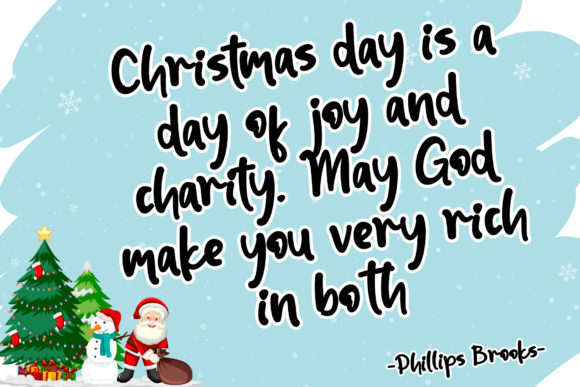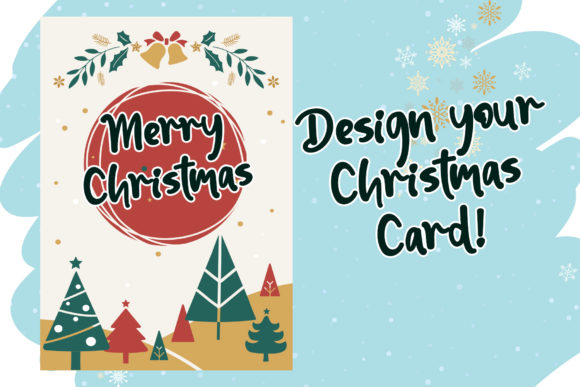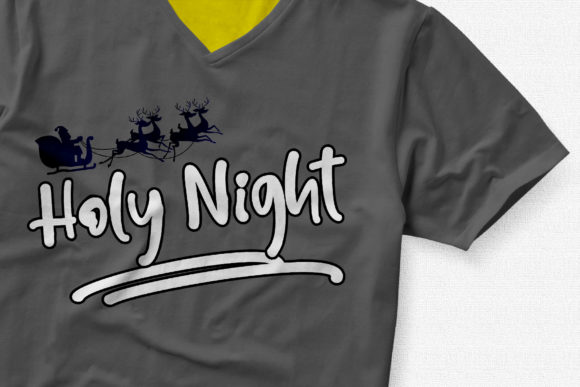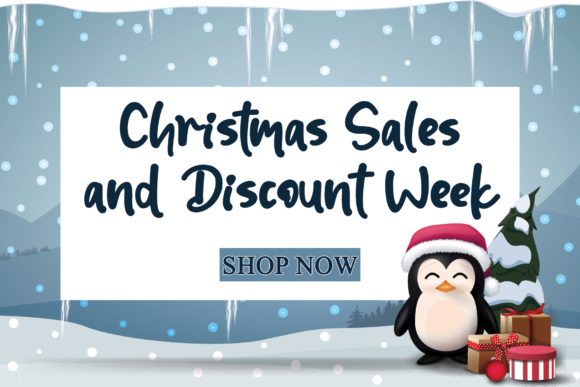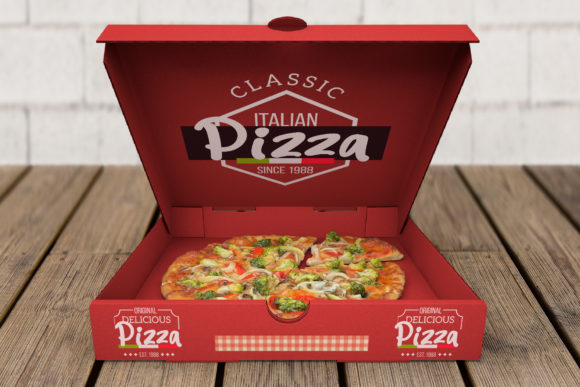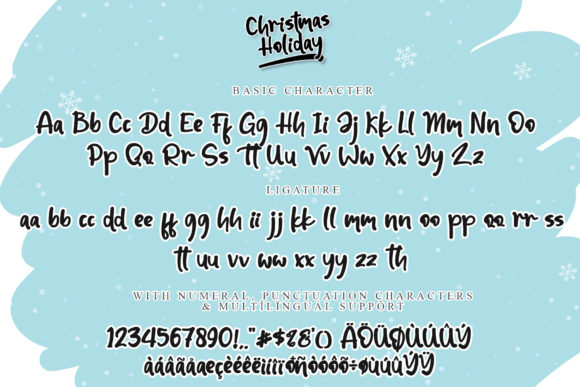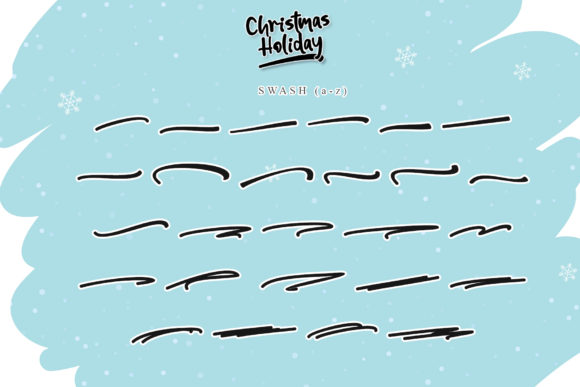
Christmas Holiday Font
About Christmas Holiday Font
Christmas Holiday is a cute and flowing handwritten font. Get inspired by its incredibly versatile style and use it to create gorgeous Christmas party invitations, beautiful stationary art, eye-catching social media posts, and much more!